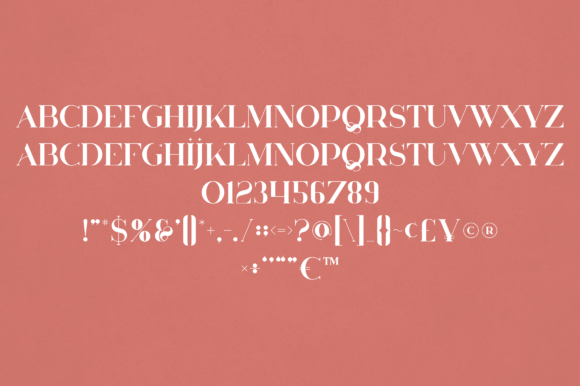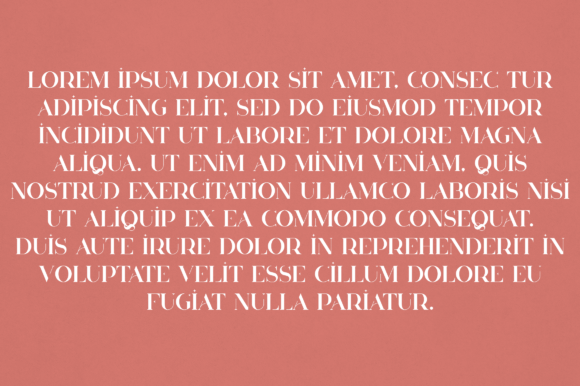
Introducing Amiah Font: Elevate Your Typography with Elegance and Versatility
In the world of design, typography plays a crucial role in conveying messages, expressing creativity, and establishing brand identity. Among the numerous fonts available, Amiah Font stands out as a beacon of elegance and versatility. This exquisite font is designed to transform your typography into a unique masterpiece, perfect for a wide range of applications, from logos and branding to headlines and plain text.
The Charm of Amiah Font
Amiah Font is an elegant and sophisticated typeface that effortlessly adapts to various design needs. Its unique characteristics make it an ideal choice for designers and crafters looking to add a touch of refinement to their projects. Whether you’re working on branding projects, home-ware designs, product packaging, or magazine headers, Amiah Font is sure to enchant your audience with its distinctive charm.
Perfect for Branding and Design Projects
Establishing a strong brand identity is crucial for businesses, and typography plays a vital role in this process. Amiah Font offers a stylish and sophisticated solution for branding projects. Its elegant and versatile design makes it perfect for:
- Logos: Create a lasting impression with a unique and memorable logo that reflects your brand’s personality.
- Branding: Develop a consistent visual identity across all your marketing materials, from business cards to website headers.
- Headlines: Grab attention with bold and stylish headlines that showcase your message.
- Plain Text: Add a touch of elegance to your plain text with Amiah Font’s sophisticated design.
Amiah Font’s versatility extends beyond branding and design projects. Its elegant design makes it perfect for a wide range of applications, including:
- Home-ware designs: Add a touch of sophistication to your home-ware designs, from kitchen utensils to decorative items.
- Product packaging: Elevate your product packaging with a stylish and eye-catching design that reflects your brand’s personality.
- Magazine headers: Create stunning magazine headers that grab attention and set the tone for your content.
- Text overlays: Use Amiah Font as a stylish text overlay to add depth and context to any background image.
Why Choose Amiah Font?
With so many fonts available, why choose Amiah Font? Here are just a few reasons why designers and crafters love this elegant and versatile typeface:
- Unique design: Amiah Font’s distinctive design sets it apart from other fonts, ensuring your typography stands out.
- Elegant and sophisticated: Add a touch of refinement to your designs with Amiah Font’s elegant and sophisticated design.
- Versatile: Use Amiah Font across various design projects, from branding and logos to headlines and plain text.
In conclusion, Amiah Font is an exceptional choice for designers and crafters looking to elevate their typography with elegance and versatility. Its unique design, elegant and sophisticated style, and versatility make it perfect for a wide range of applications. Whether you’re working on branding projects, home-ware designs, product packaging, or magazine headers, Amiah Font is sure to enchant your audience and leave a lasting impression.